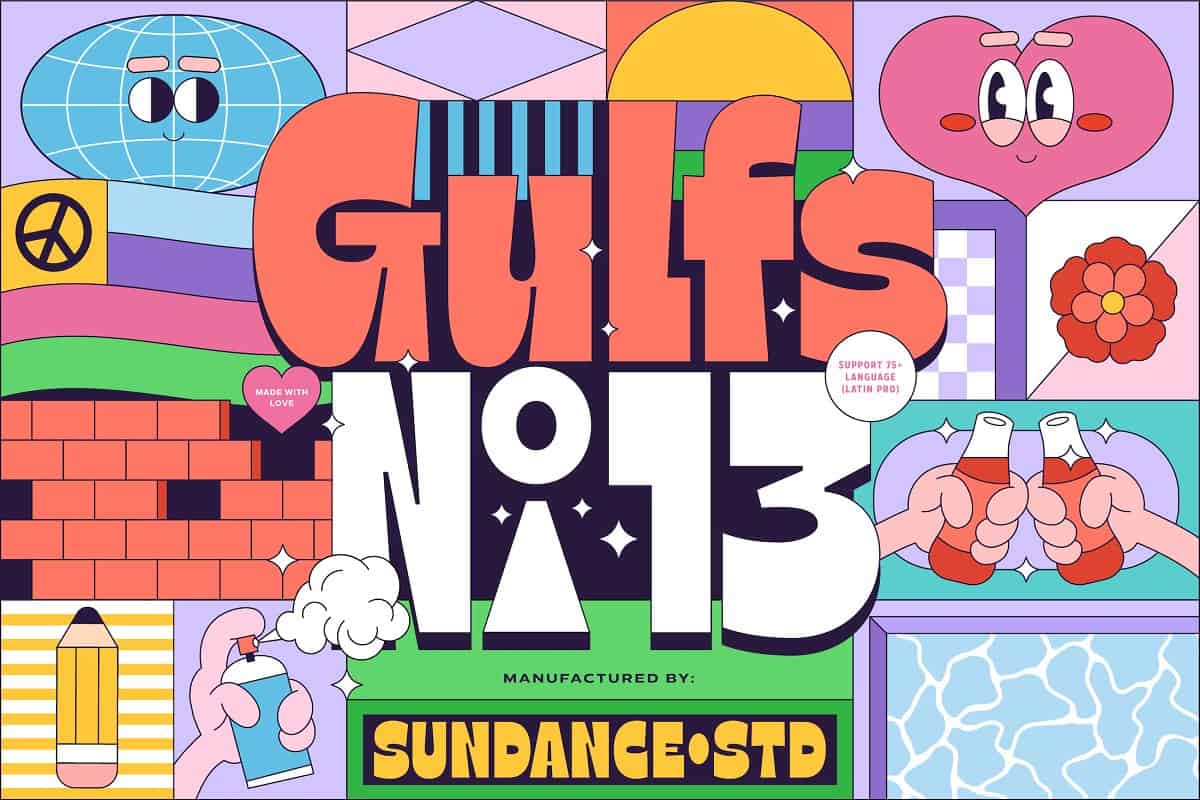
Gulfs Display Font
Gulfs Display Font - Windows , macos , linux , photoshop , download gulfs. Web download gulfs display. It comes in six widths and has 14 styles, including. How to install the font in: Web gulfs display is a playful font inspired by the 90's cartoon & comic books.
It comes in six widths and has 14 styles, including. Windows , macos , linux , photoshop , download gulfs. How to install the font in: Web download gulfs display. Web gulfs display is a playful font inspired by the 90's cartoon & comic books.
Web gulfs display is a playful font inspired by the 90's cartoon & comic books. How to install the font in: Windows , macos , linux , photoshop , download gulfs. It comes in six widths and has 14 styles, including. Web download gulfs display.
Gulfs Display Font by Studio Sun
Web download gulfs display. Windows , macos , linux , photoshop , download gulfs. It comes in six widths and has 14 styles, including. How to install the font in: Web gulfs display is a playful font inspired by the 90's cartoon & comic books.
Web gulfs display is a playful font inspired by the 90's cartoon & comic books. It comes in six widths and has 14 styles, including. How to install the font in: Web download gulfs display. Windows , macos , linux , photoshop , download gulfs.
It comes in six widths and has 14 styles, including. How to install the font in: Web gulfs display is a playful font inspired by the 90's cartoon & comic books. Windows , macos , linux , photoshop , download gulfs. Web download gulfs display.
Web gulfs display is a playful font inspired by the 90's cartoon & comic books. It comes in six widths and has 14 styles, including. Windows , macos , linux , photoshop , download gulfs. How to install the font in: Web download gulfs display.
It comes in six widths and has 14 styles, including. How to install the font in: Windows , macos , linux , photoshop , download gulfs. Web download gulfs display. Web gulfs display is a playful font inspired by the 90's cartoon & comic books.
How to install the font in: It comes in six widths and has 14 styles, including. Web download gulfs display. Web gulfs display is a playful font inspired by the 90's cartoon & comic books. Windows , macos , linux , photoshop , download gulfs.
Web gulfs display is a playful font inspired by the 90's cartoon & comic books. Web download gulfs display. How to install the font in: It comes in six widths and has 14 styles, including. Windows , macos , linux , photoshop , download gulfs.
It Comes In Six Widths And Has 14 Styles, Including.
How to install the font in: Web gulfs display is a playful font inspired by the 90's cartoon & comic books. Web download gulfs display. Windows , macos , linux , photoshop , download gulfs.